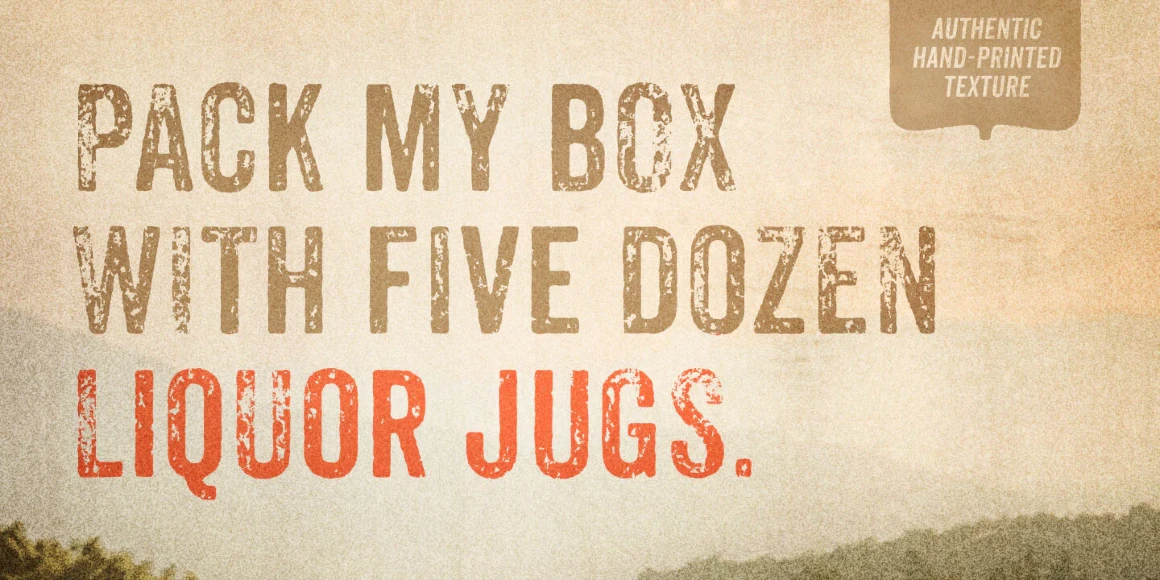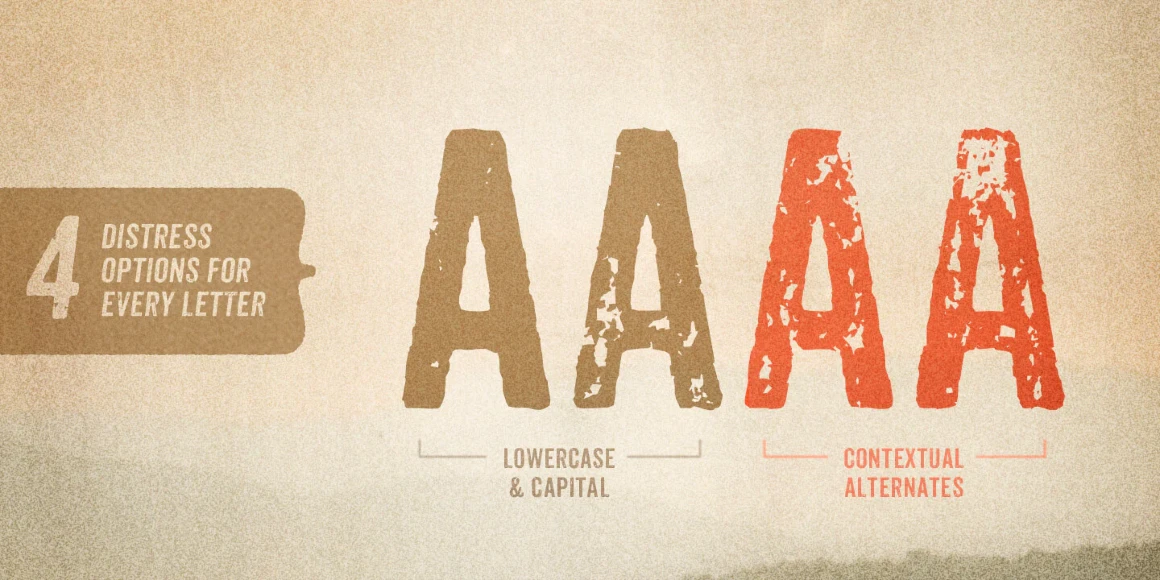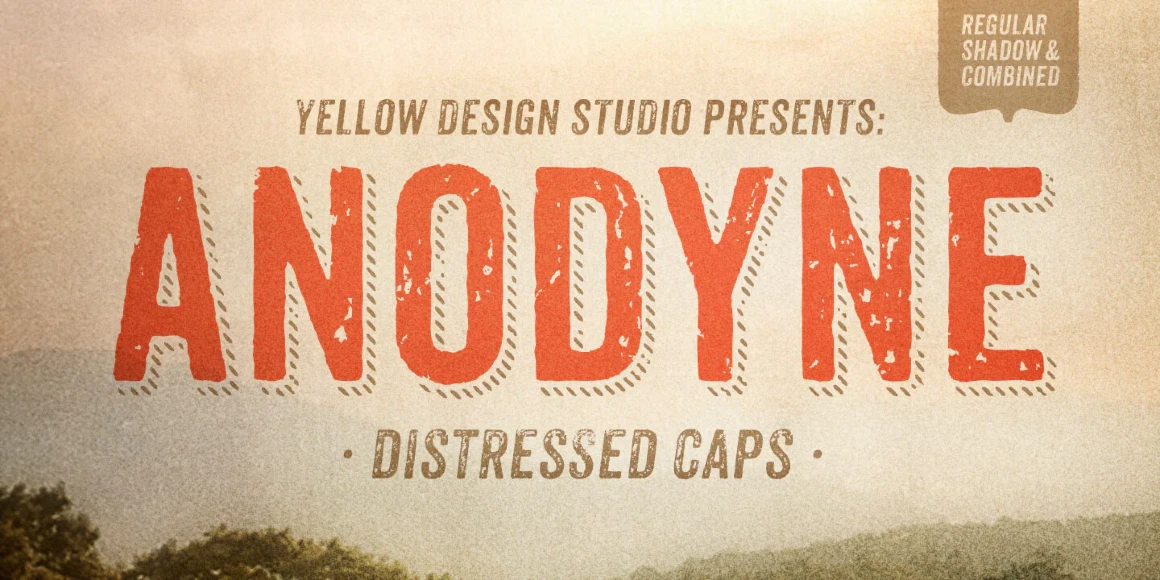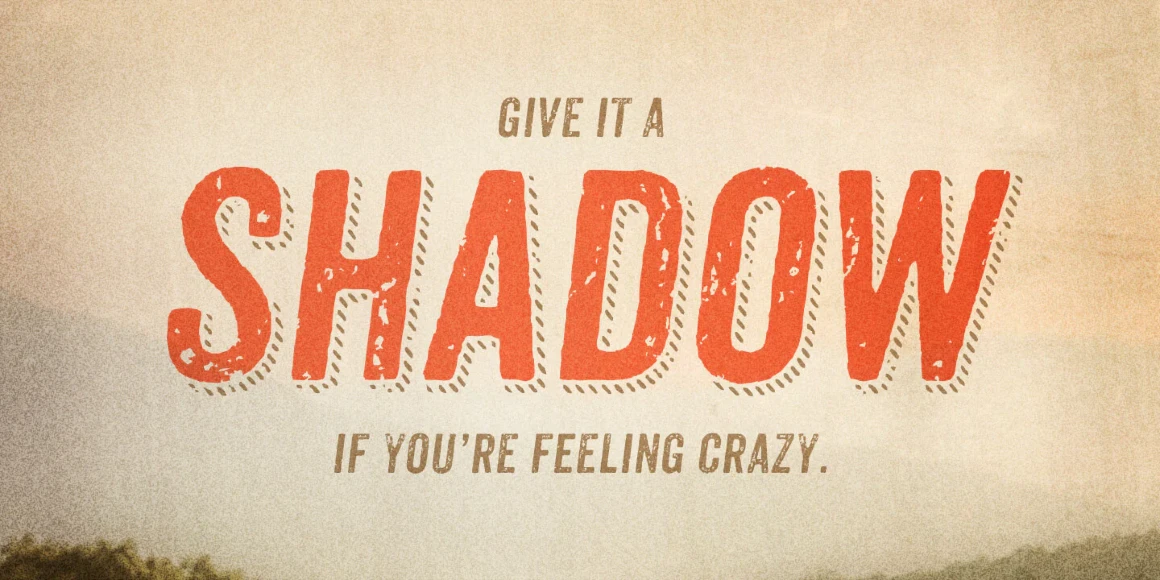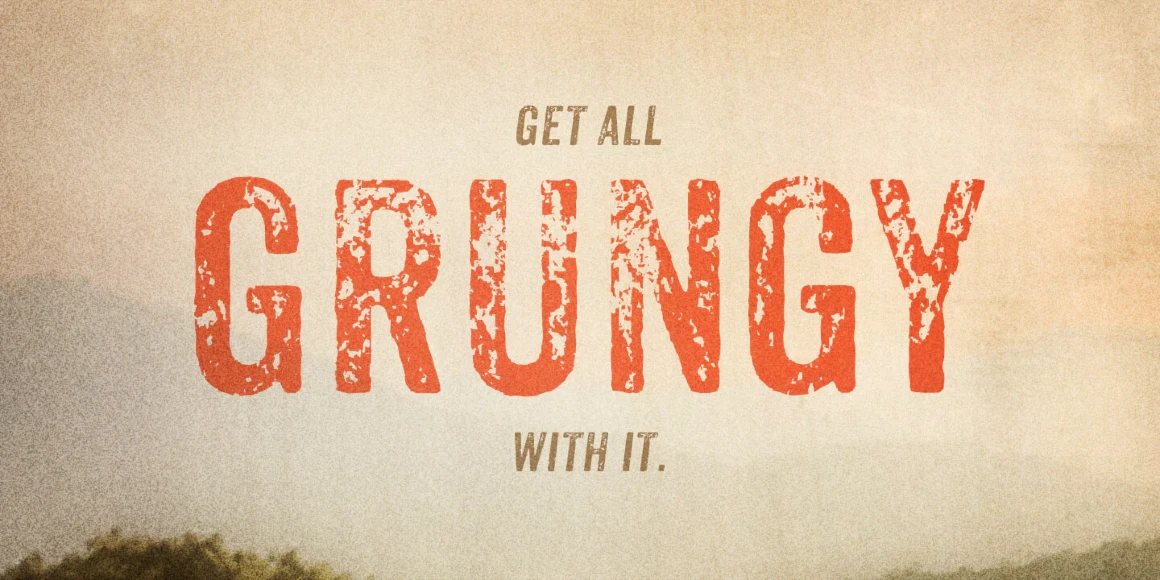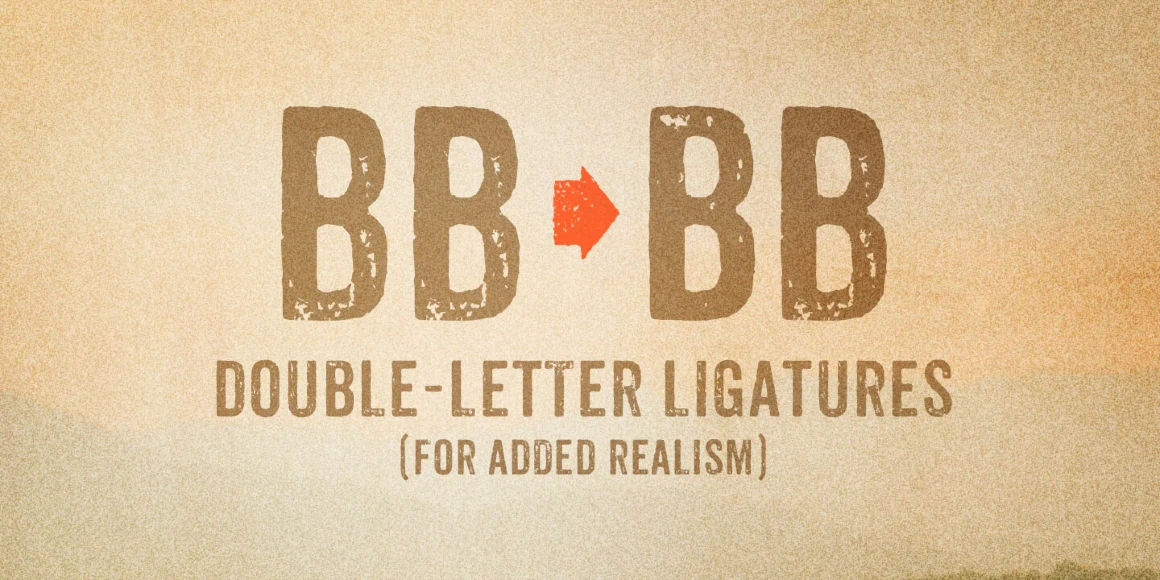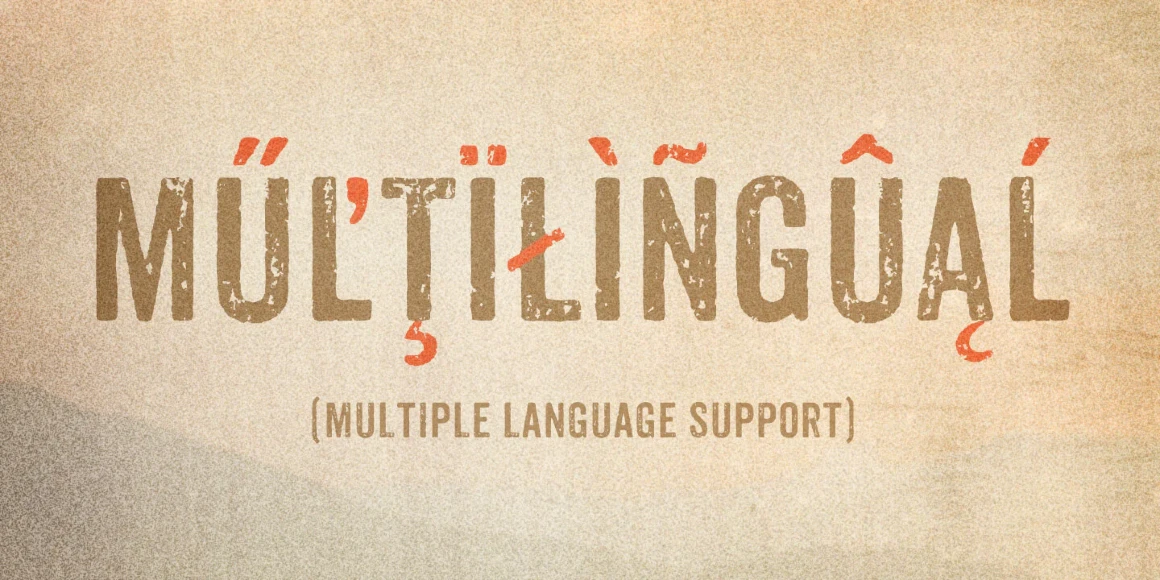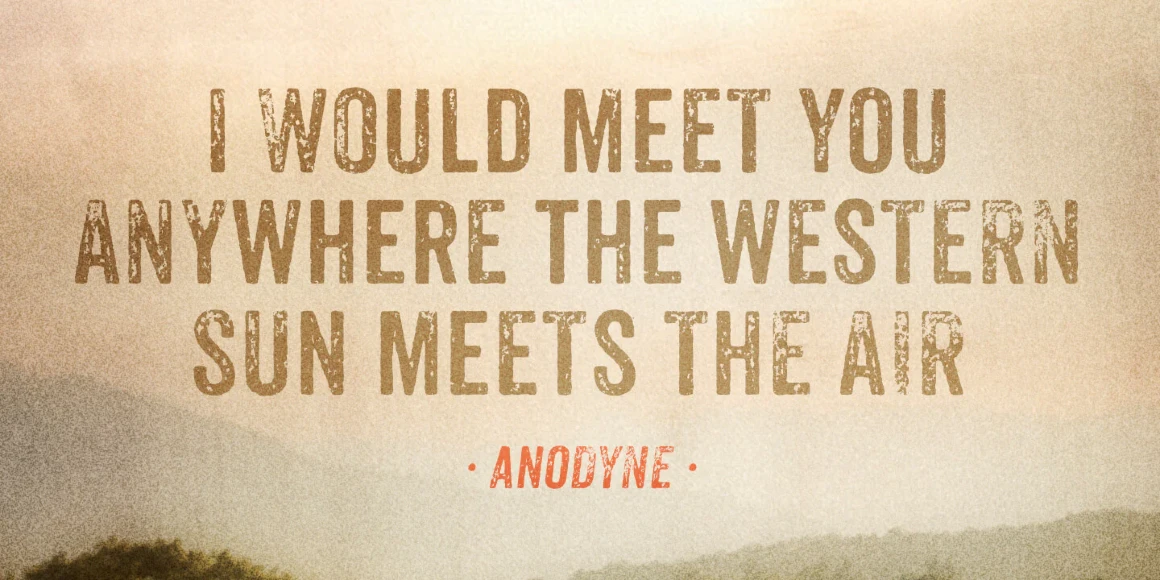
Anodyne
By Ryan Martinson
Anodyne Combined
Anodyne Regular
Anodyne Shadow
Anodyne Combined Italic
Anodyne Regular Italic
Anodyne Shadow Italic
Anodyne is a warm and weathered all-caps font from Yellow Design Studio with hand-printed texture and unique shadow options. Features include four distress variations for each letter and at least two for every other character. Double-letter ligatures add realism by eliminating identical texture in adjacent characters. Layering regular and shadow versions allows independent control of the shadow color. Switch between lower-case and capital letters to change texture, or use opentype contextual alternates for additional, extra-distressed variations. Anodyne has an extended character set for multiple language support.